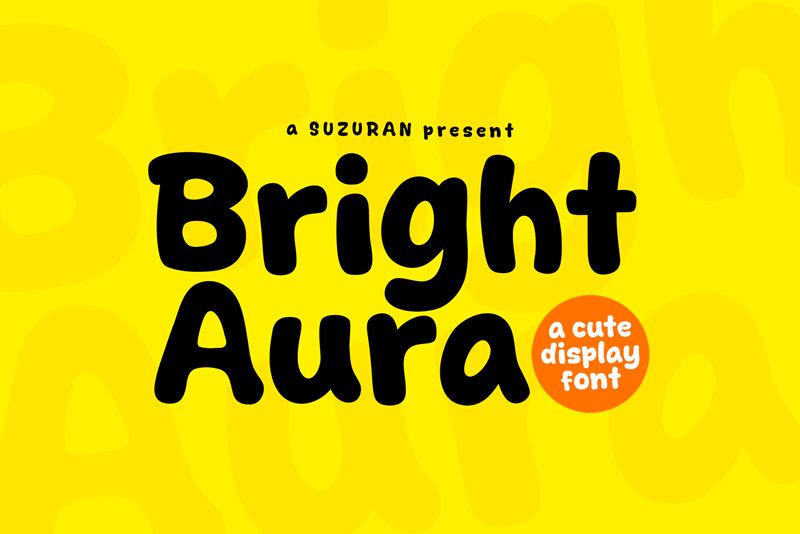
Bright Aura
Bright Aura font by Khurasan is an animated display font with a friendly and approachable style. Its bold weight immediately attracts viewers making each of its youthful, casual characters pleasurable to read. Intentionally having imperfections in its strokes gives it an unusual organic appearance.
The free cartoon font can fit different design purposes, from logos to flyer designs, school notes and invitations to greeting cards and banners. Friendly food packaging can have a fresh vibe when using this typeface as well.